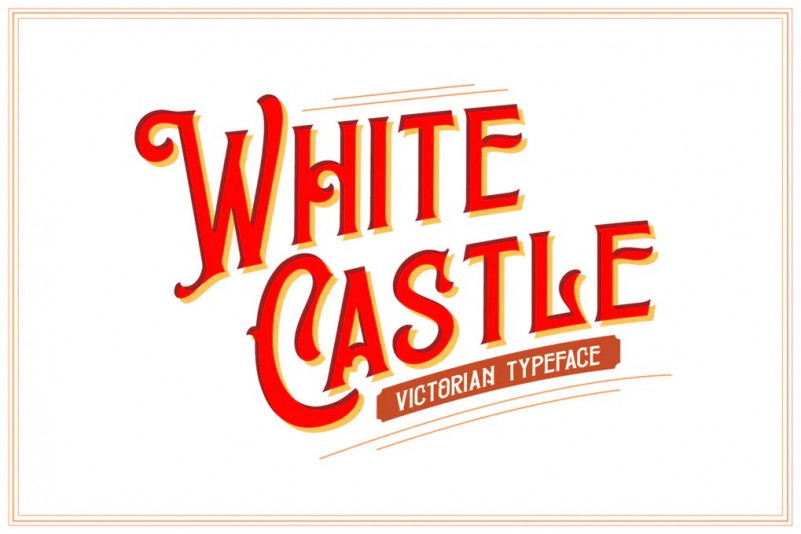
White Castle Font
White Castle is a Vintage typeface style inspired by Victorian Style. The font is perfect for logos, badges, typography and any vintage design needs.